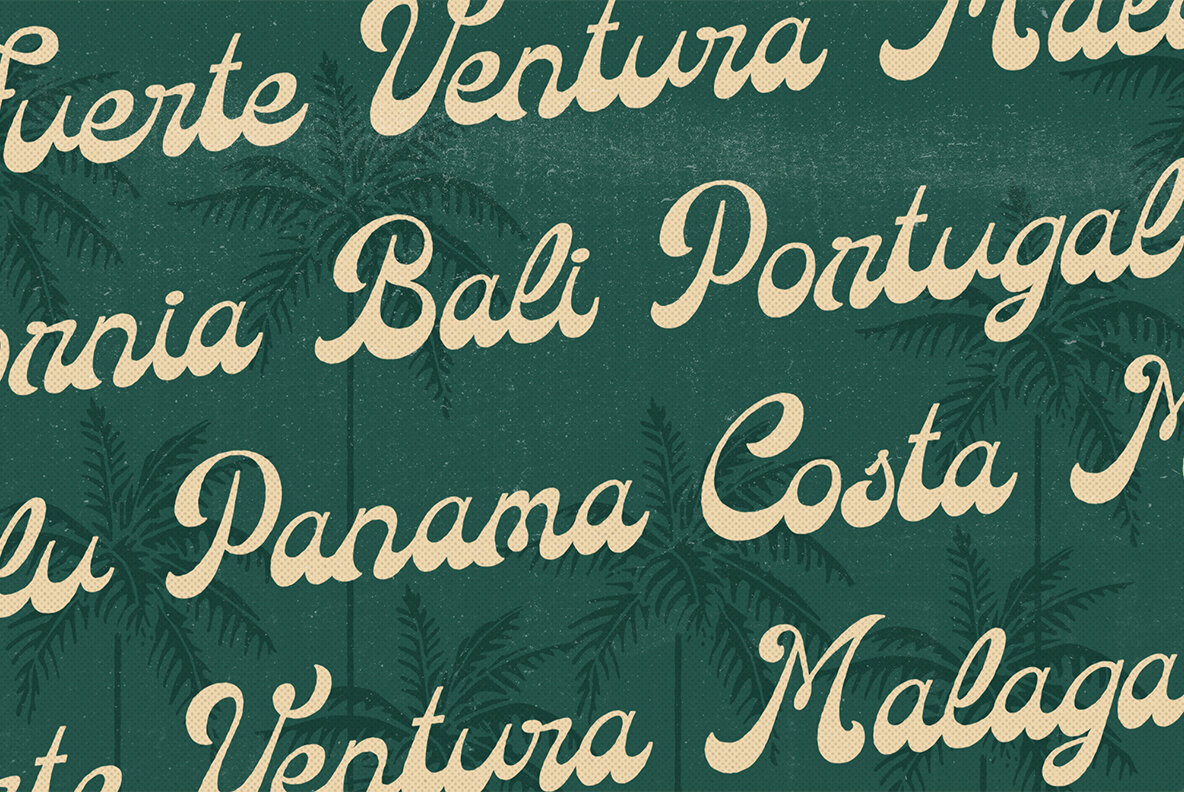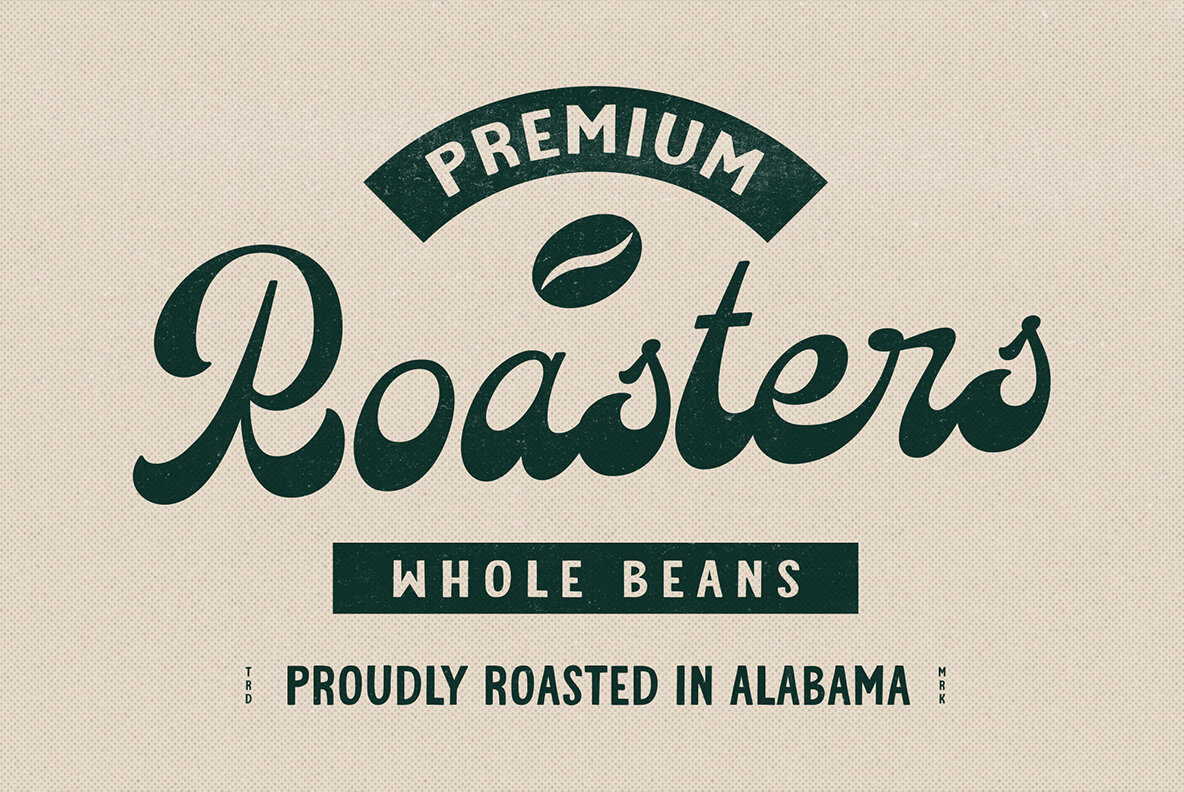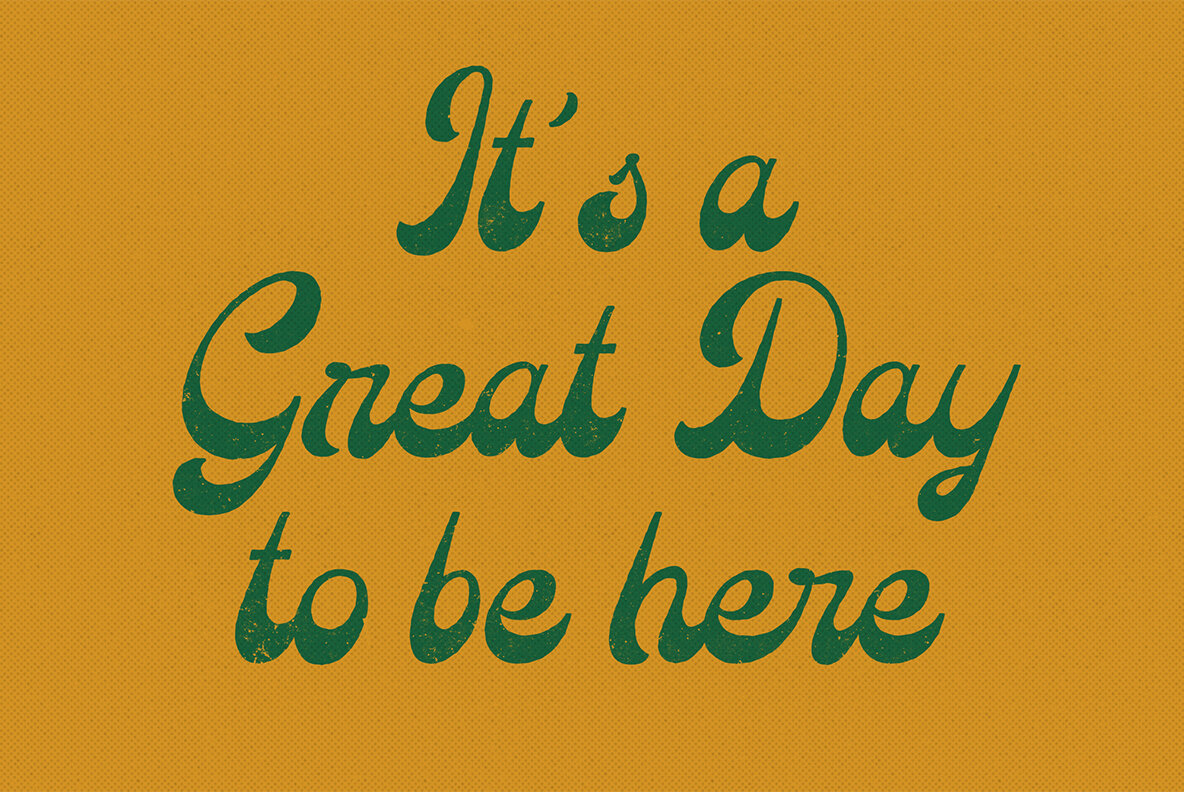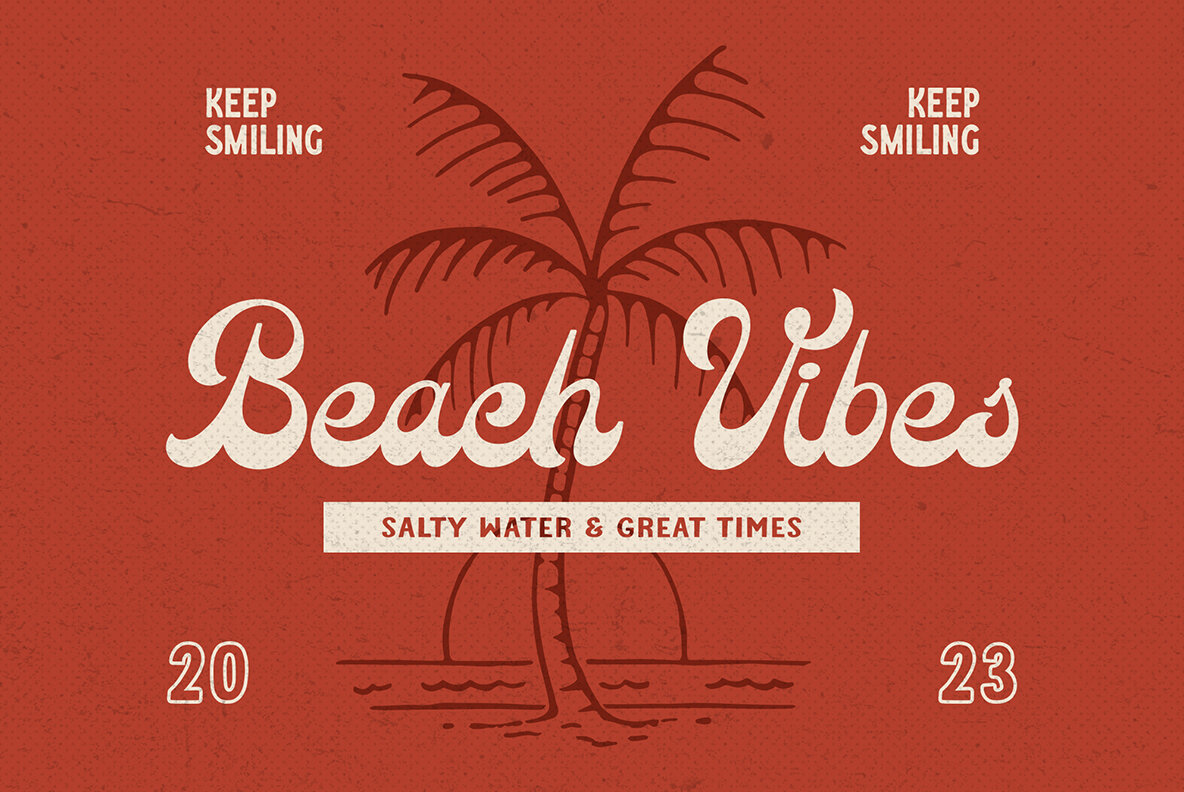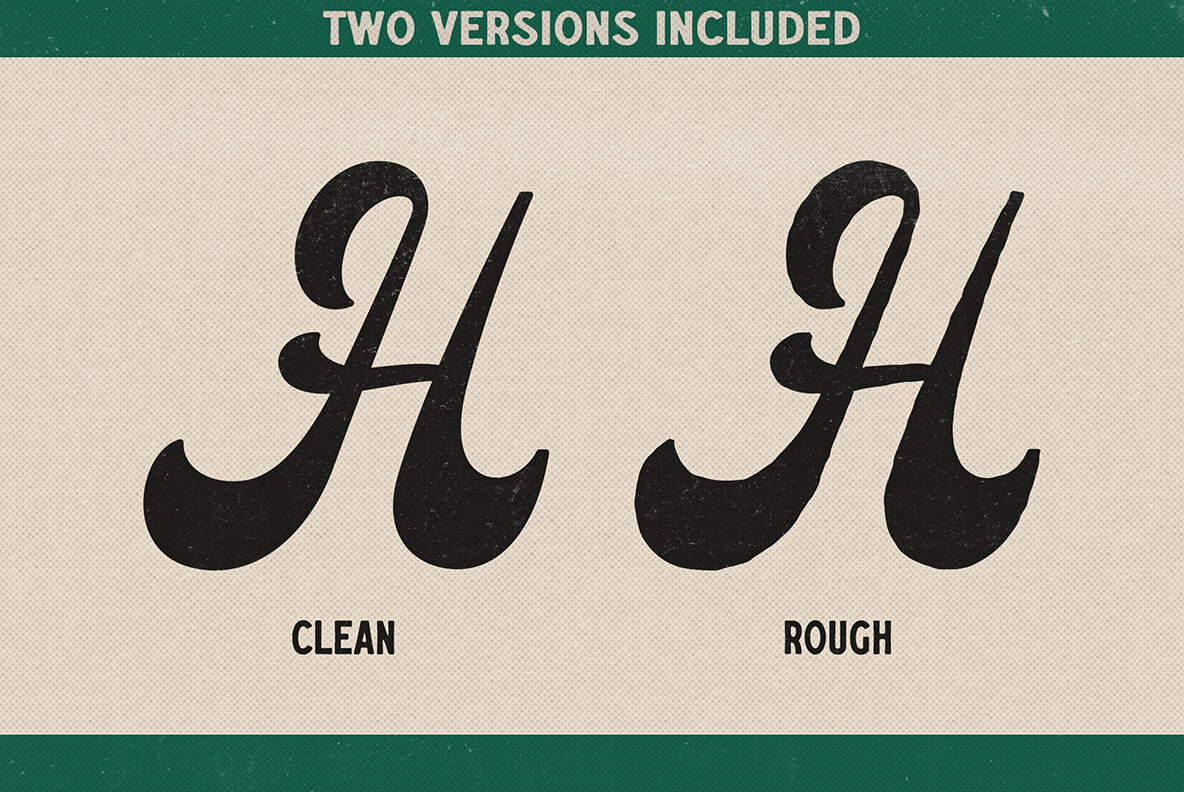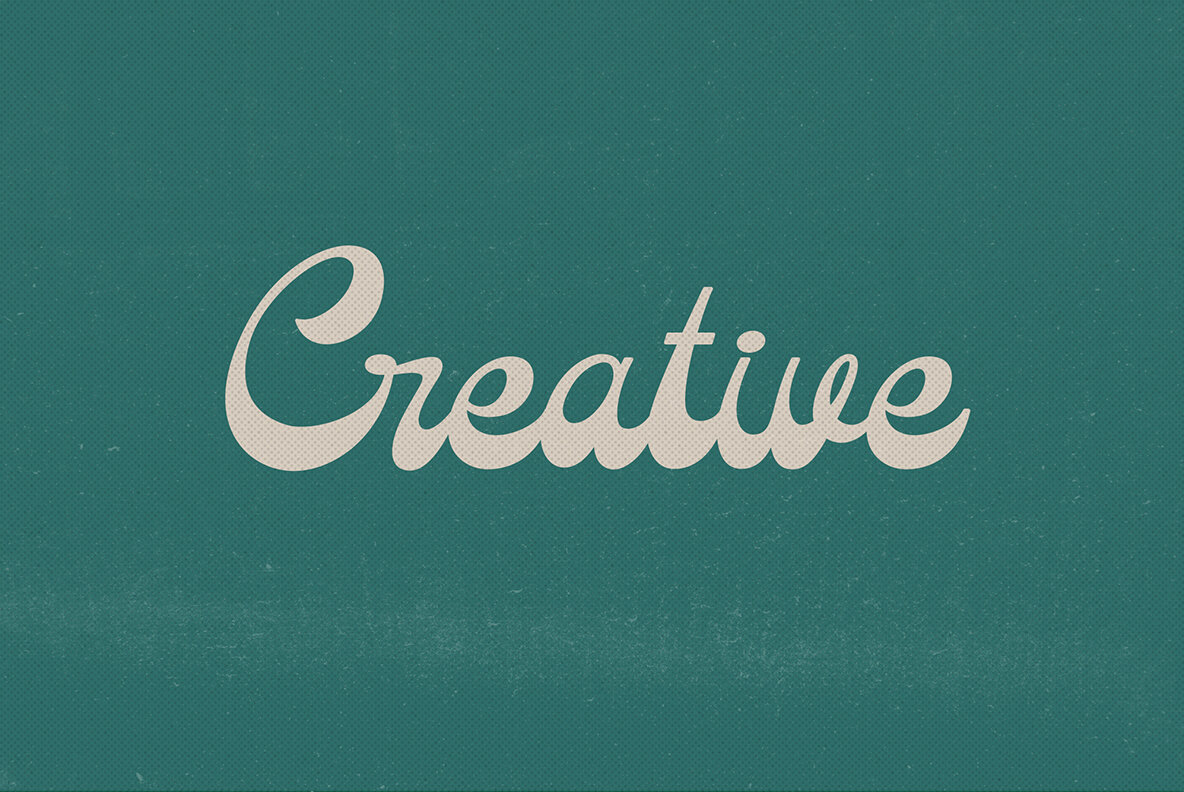
Wave Rider Font
Wave Rider is a retro curvy font that captures the playful and carefree spirit of surf culture. With its bold curves and funky vibes, this font is perfect for adding a touch of retro flair to any project.
Whether you're creating designs for t-shirts, posters, or social media graphics, Wave Rider is sure to make your message stand out. Its distinctive letterforms are easy to read, yet full of personality, making it an ideal choice for any project that calls for a touch of fun and whimsy.
You'll appreciate the versatility of this font, which can be used in a variety of contexts. From bold headlines to playful subheadings.
Overall, is a must-have font for any designer looking to capture the spirit of surf culture and add a touch of playful nostalgia to their designs.